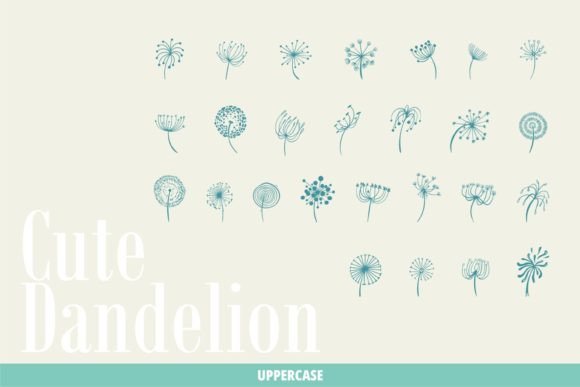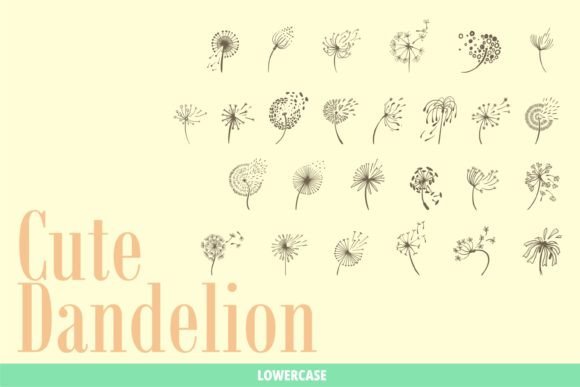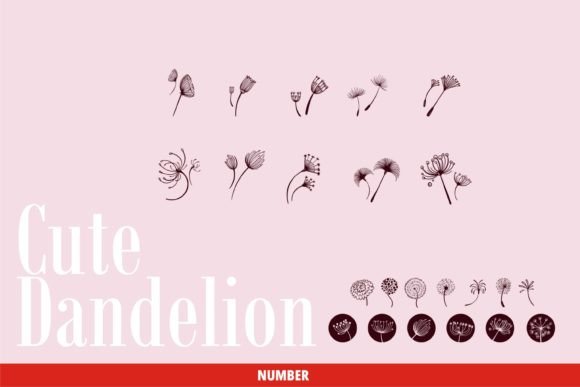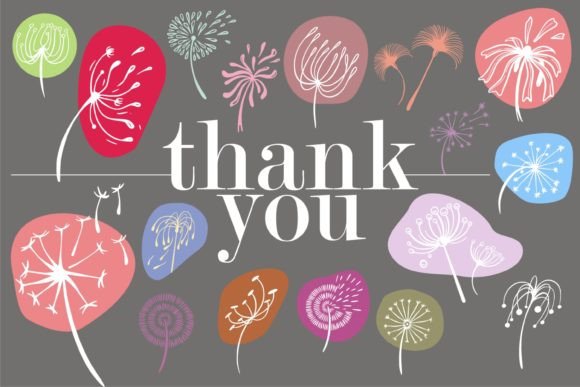
Introduction to Cute Dandelion Font
Cute Dandelion is a delightful dingbat font featuring adorable dandelion–themed glyphs.
Each character is meticulously crafted with intricate details, perfect for adding charm to invitations, cards, and crafts With its playful design, Cute Dandelion adds a touch of whimsy and sweetness to any creative project or decorative element.
Key Features of Cute Dandelion Font